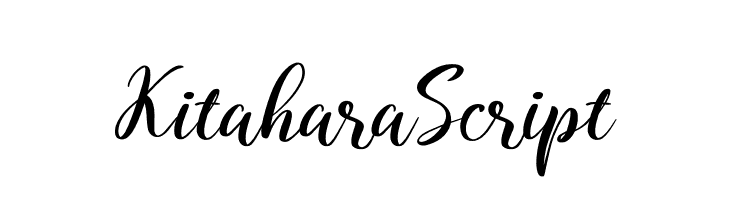
A lively, cursive script font with a brush-like texture and elegant flow.
A lively and expressive brush script font with dynamic curves and natural handwriting style.
A graceful and fluid script font with elegant, connected strokes.
A flowing, elegant script font with a handwritten, artistic style.
A playful and elegant handwritten script font with dynamic strokes.